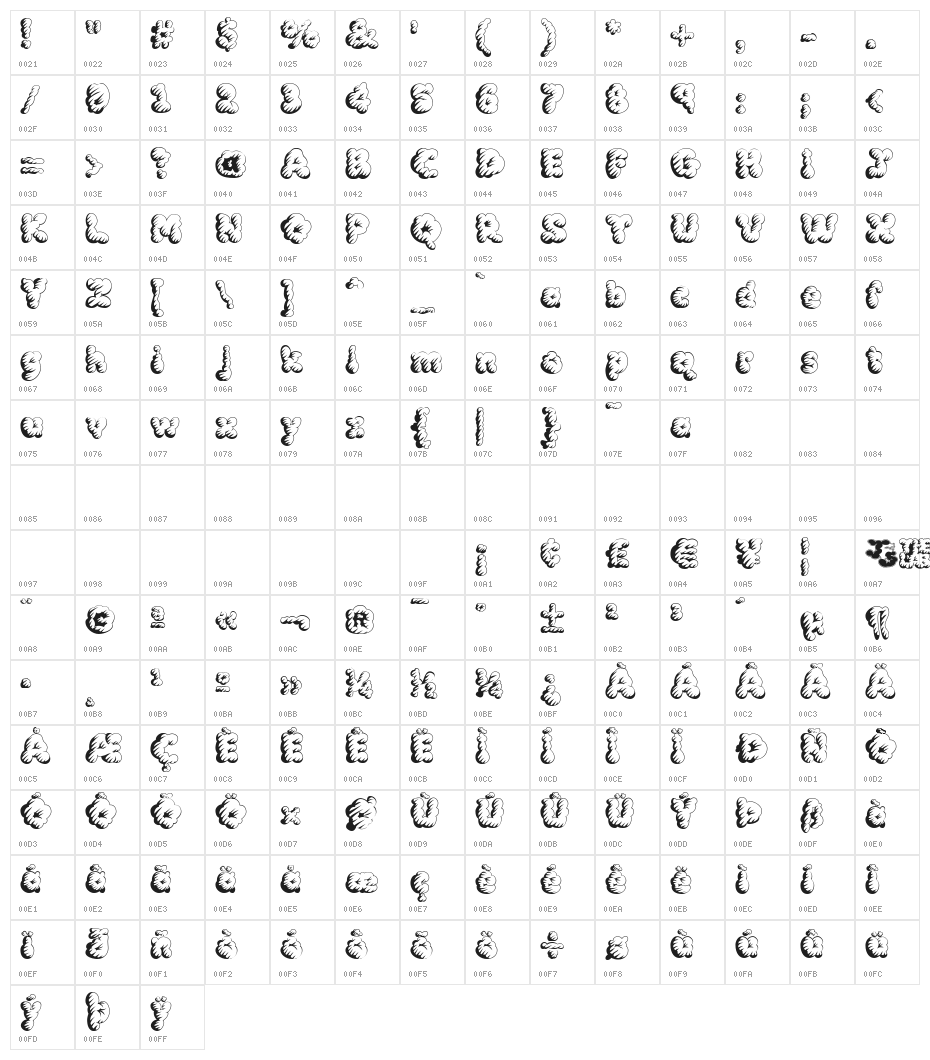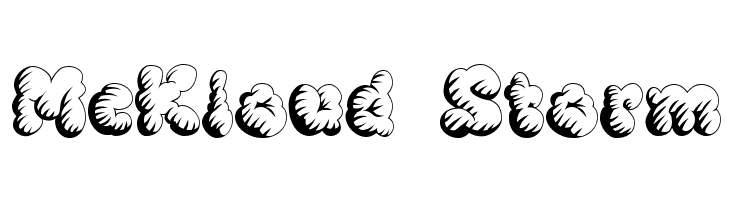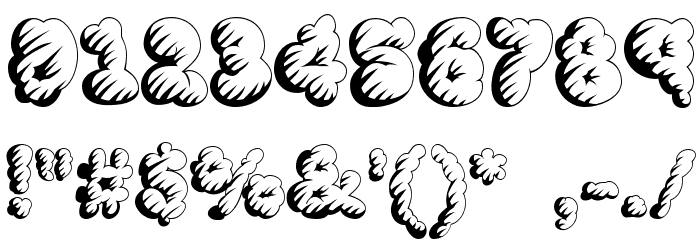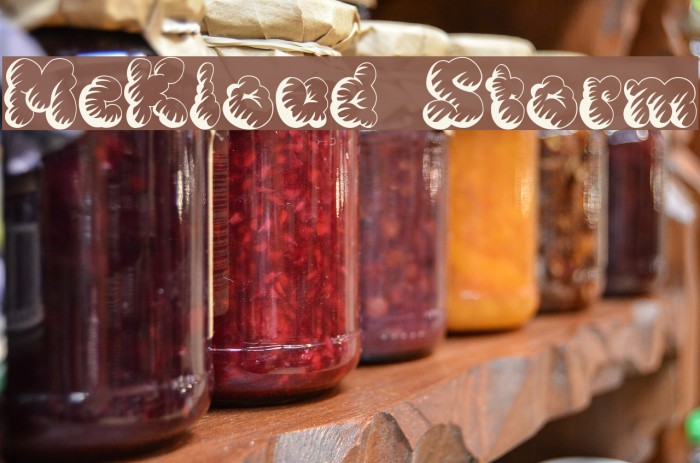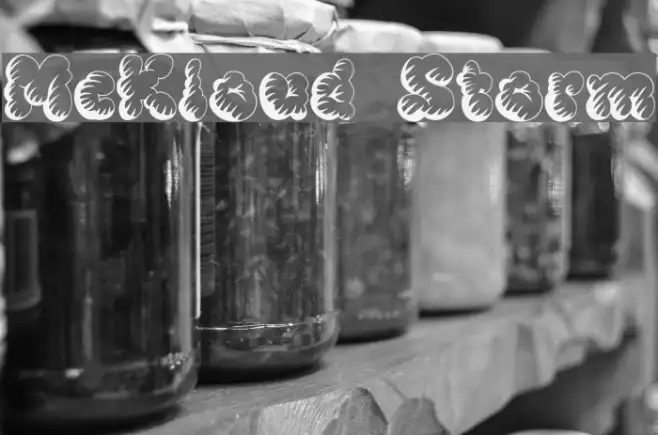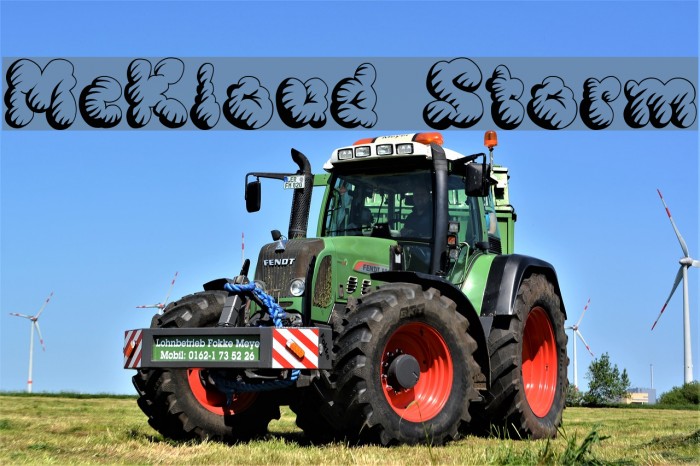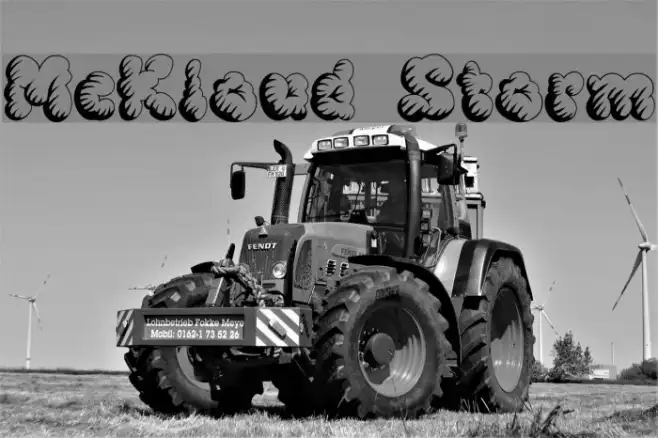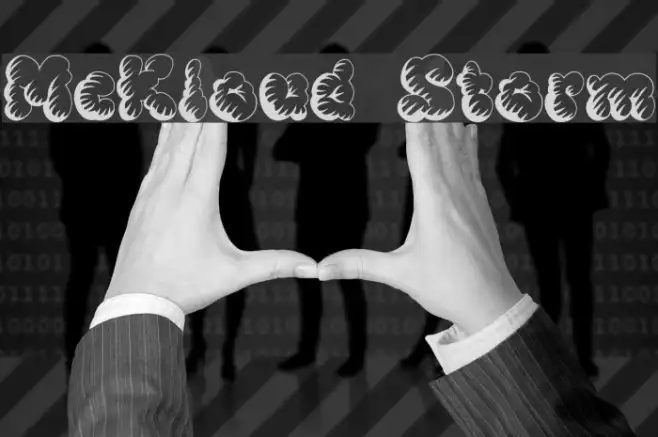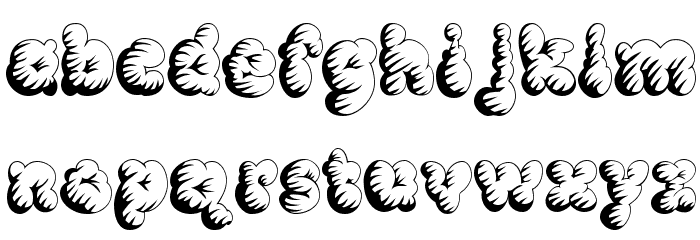
McKloud Storm Font
McKloud Storm Description
This playful and whimsical font features bold, cloud-like characters that give a sense of lightness and fun. Each letter is crafted with a puffy, rounded appearance, resembling fluffy clouds or soft marshmallows. The font's unique style is accentuated by its three-dimensional shading, adding depth and a cartoonish charm. The characters are evenly spaced, ensuring readability while maintaining their playful aesthetic. This font is perfect for projects that aim to convey a sense of joy, creativity, and imagination.
| Overall Style | Whimsical, Playful |
| Proposed Projects | Ideal for children's book covers, playful branding, party invitations, and creative posters. |